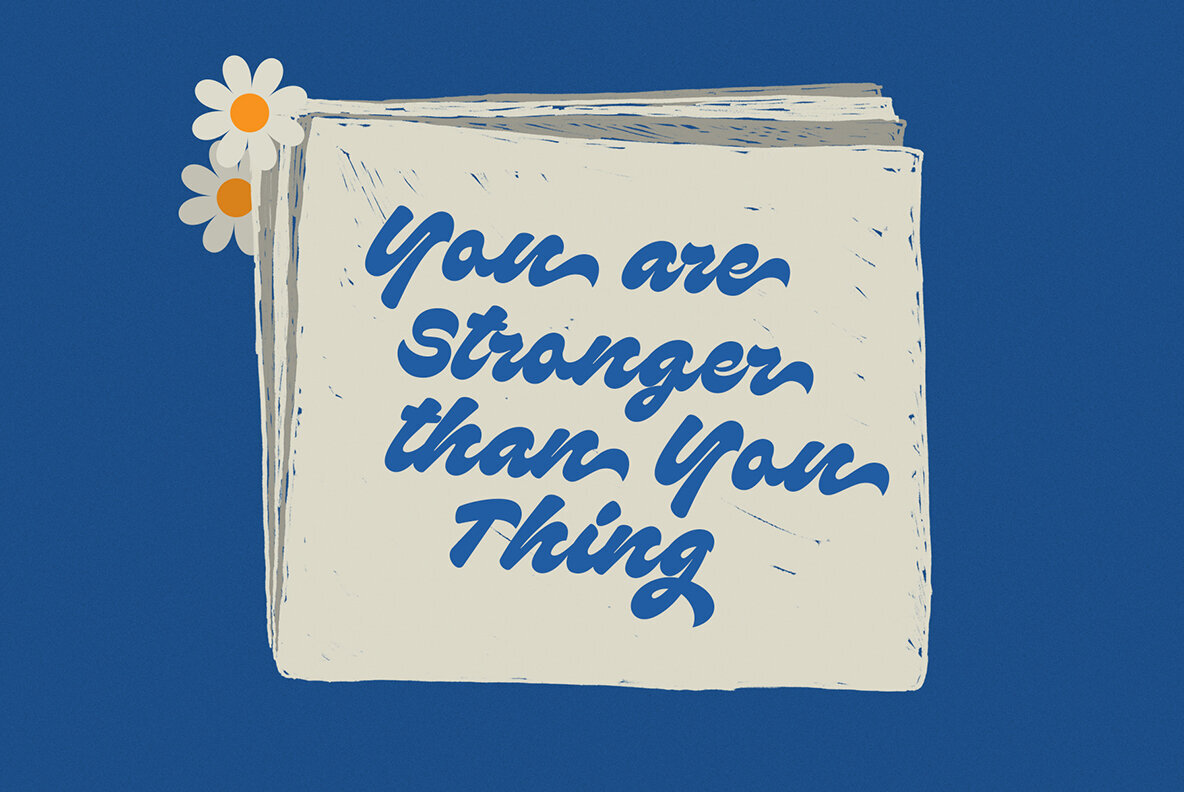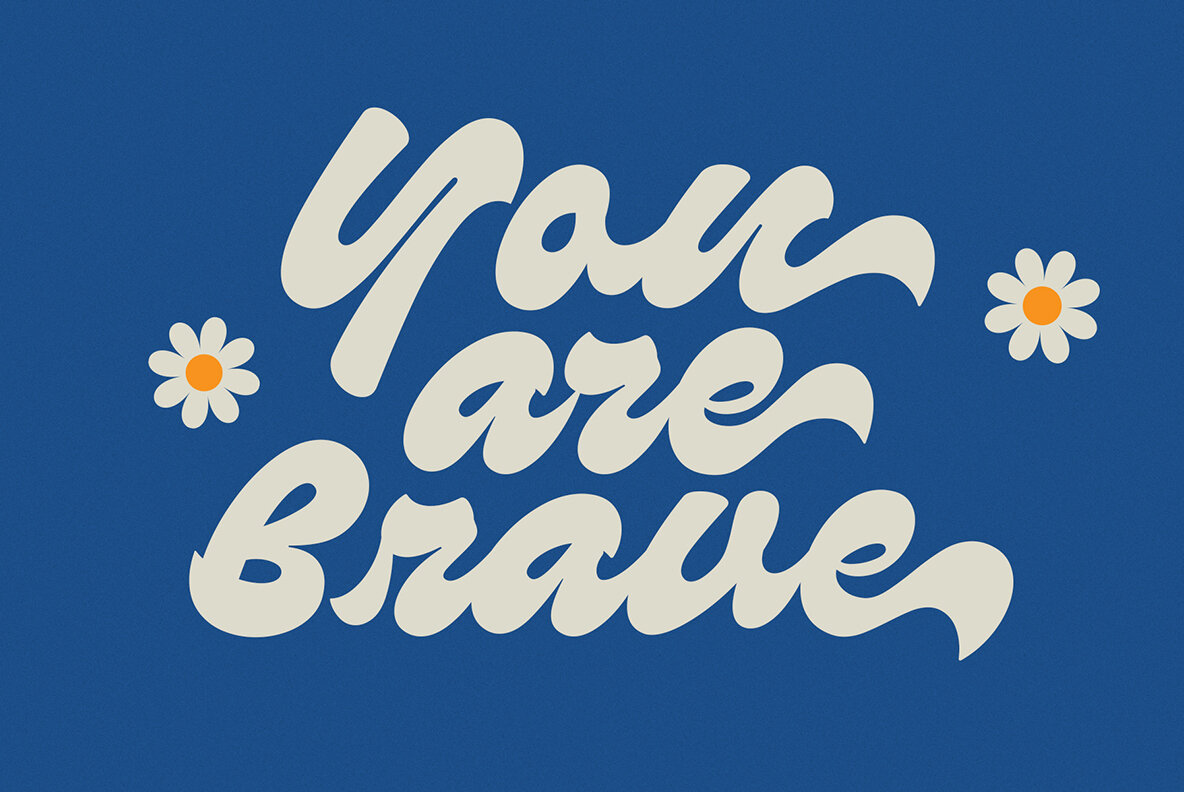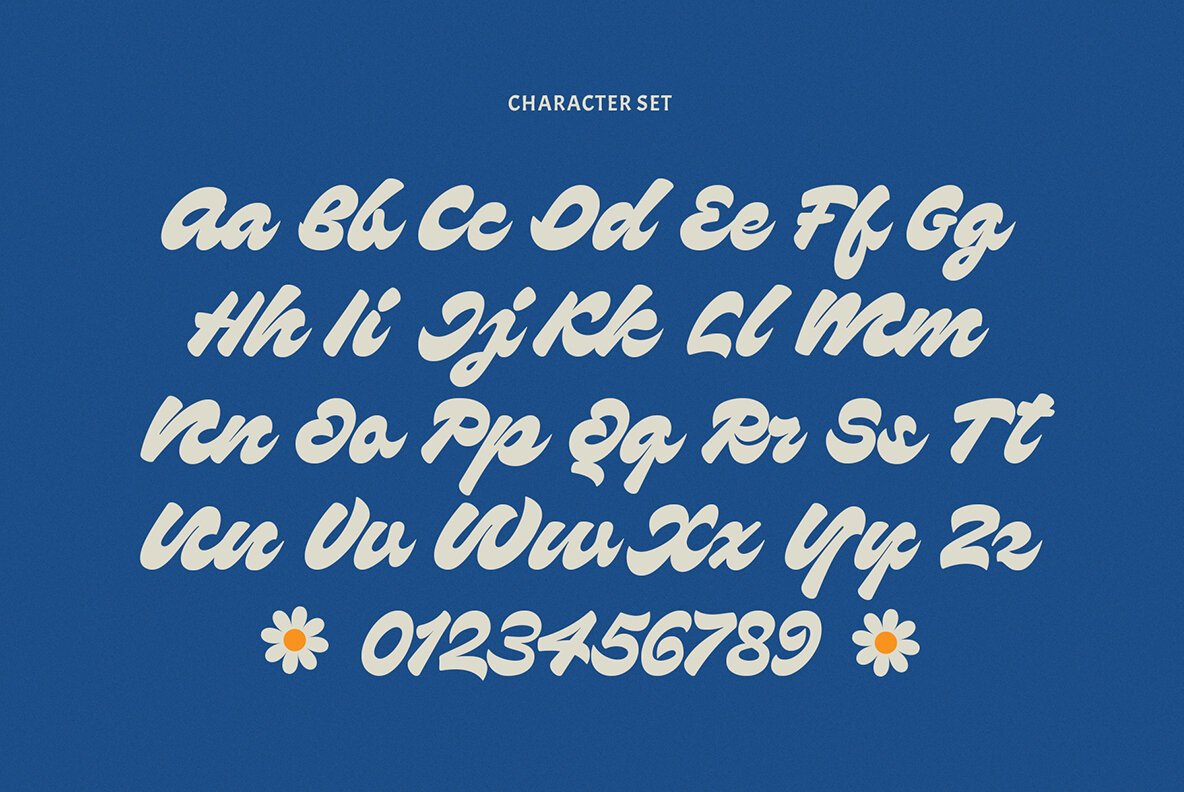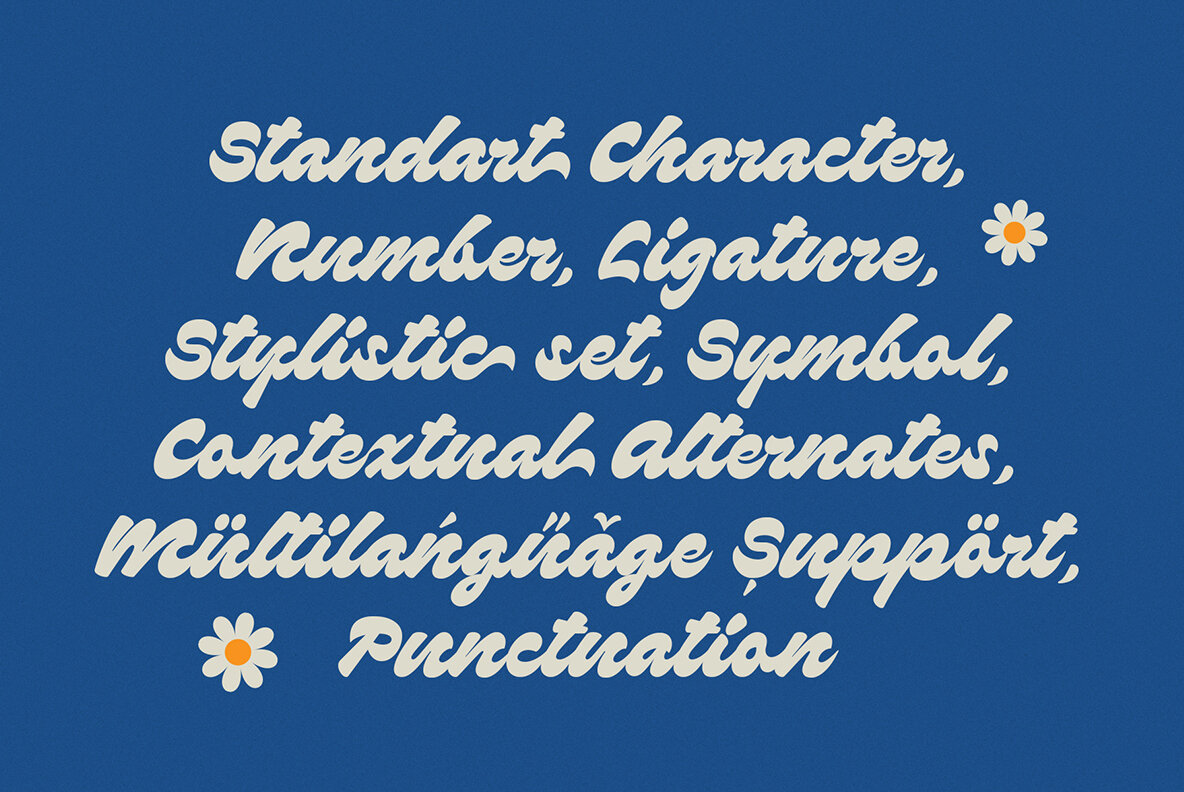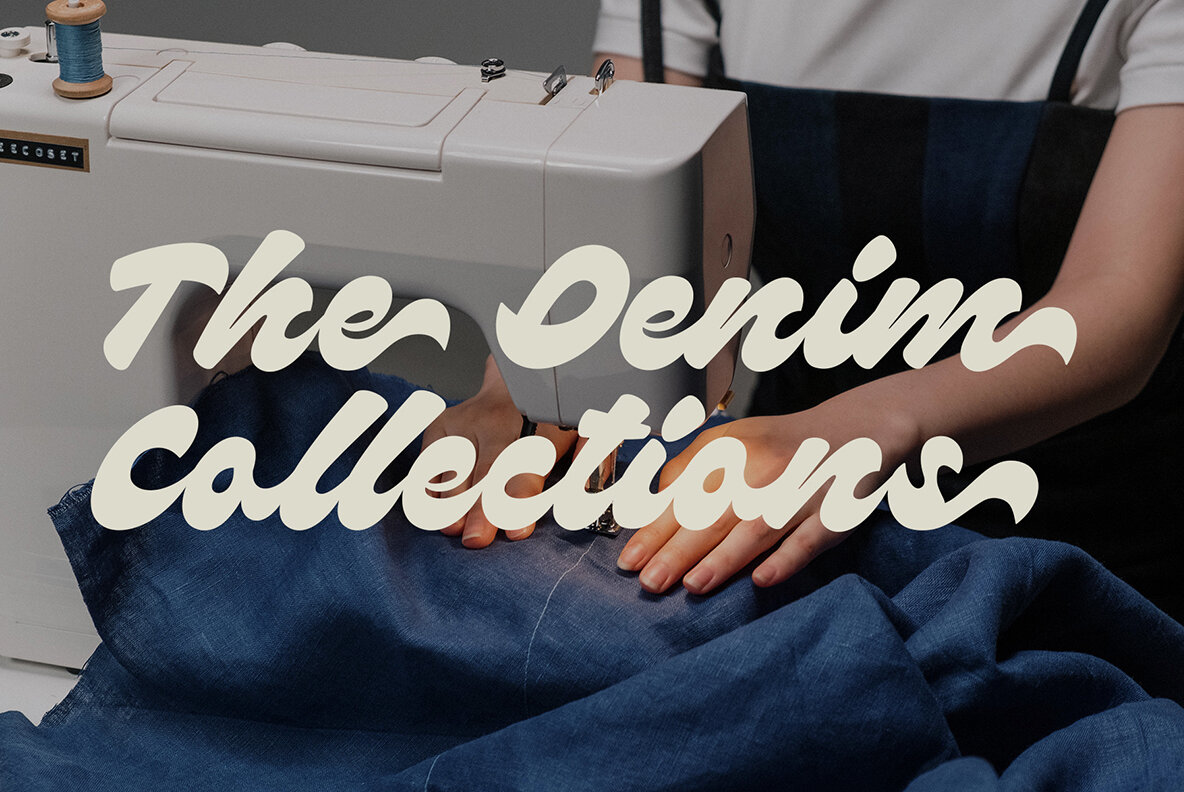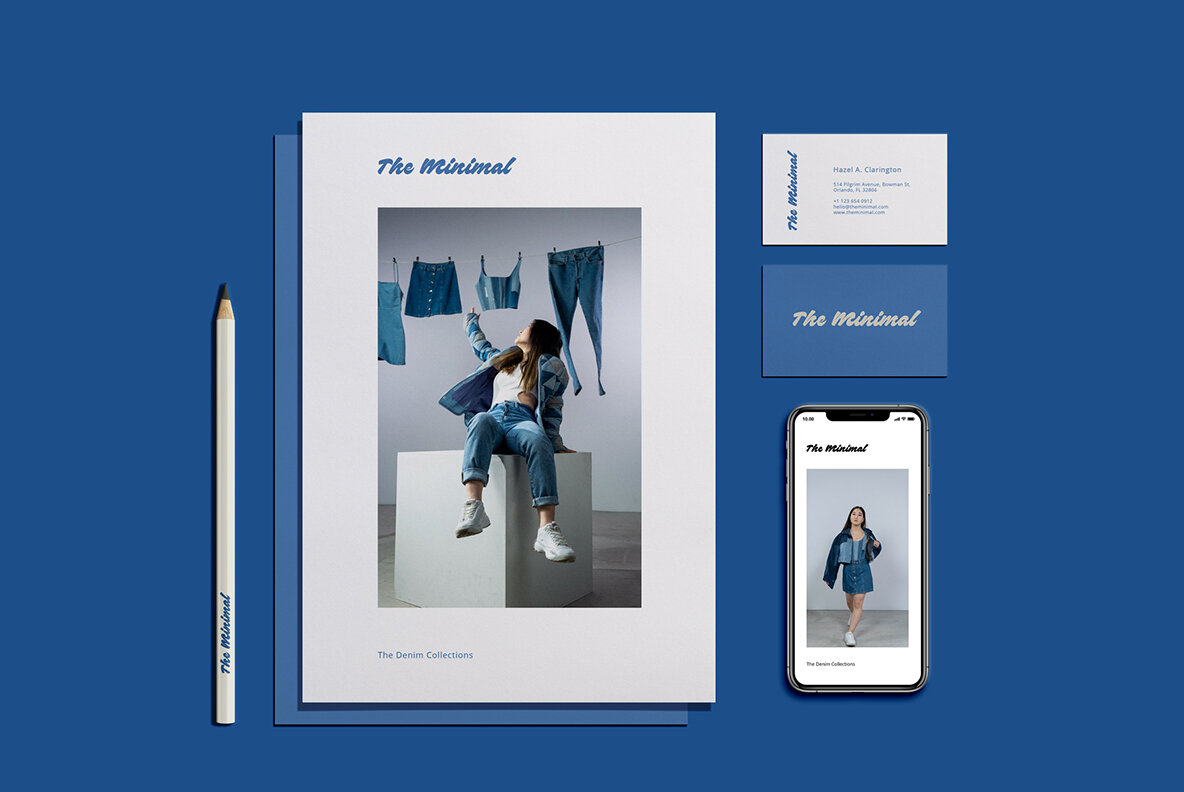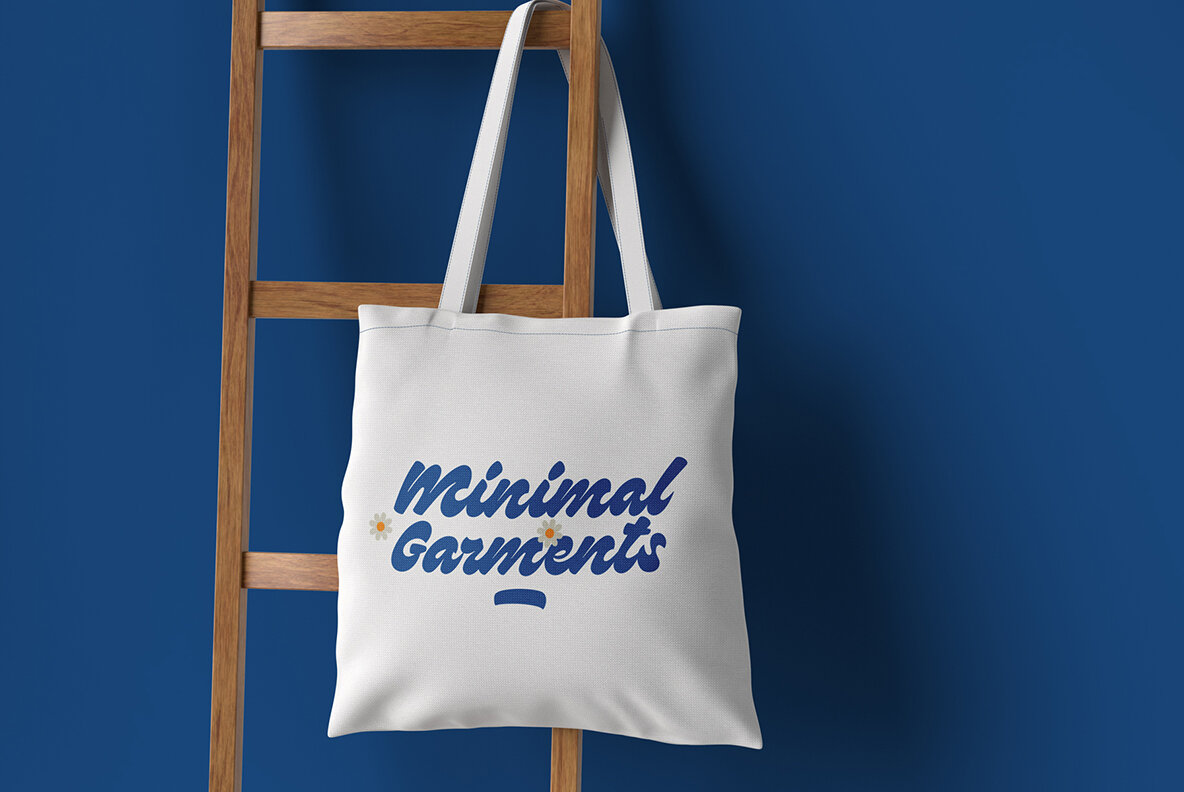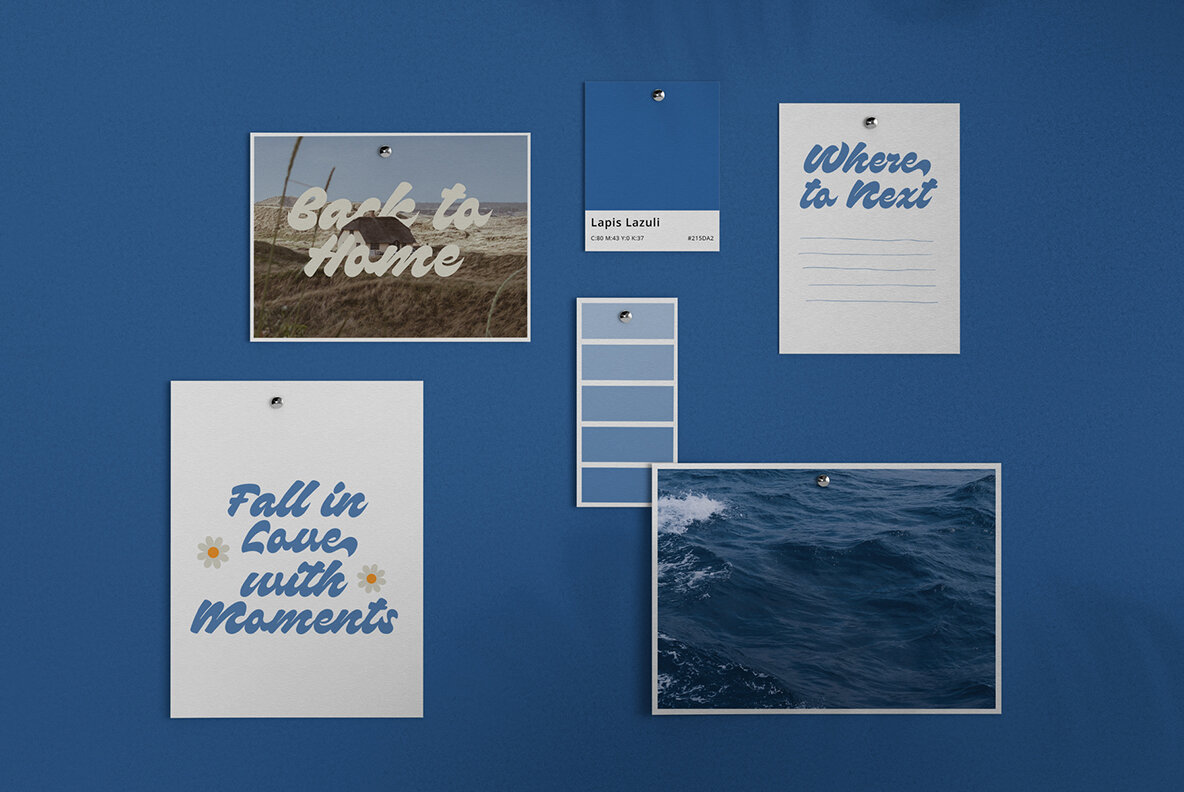
ED Corning Font
ED Corning Regular
ED Corning captures the essence of classic vintage charm in a bold script font. This typeface offers a harmonious blend of elegance and strength, making it an ideal choice for various design projects. Its distinctive style is complemented by features such as a stylist set, Contextual Alternative, and ligatures, ensuring both versatility and originality in your creative ventures. The font's unique appearance suits an array of applications, from logotypes and printed quotes to invitations and web design. Its versatility extends to diverse mediums such as cards, product packaging, headers, letterheads, apparel, magazines, and books.ED Corning: Bold Script With Vintage Flair